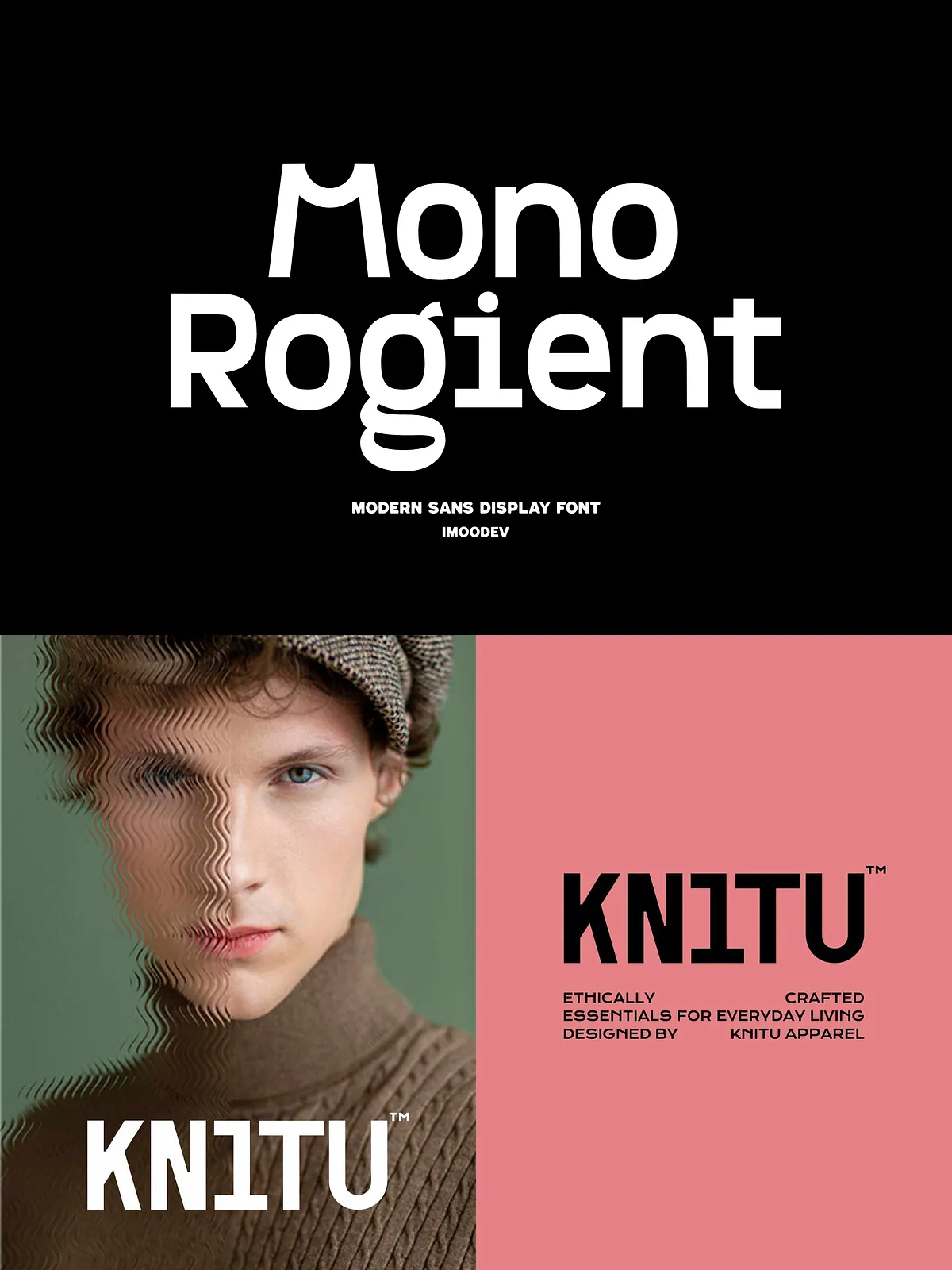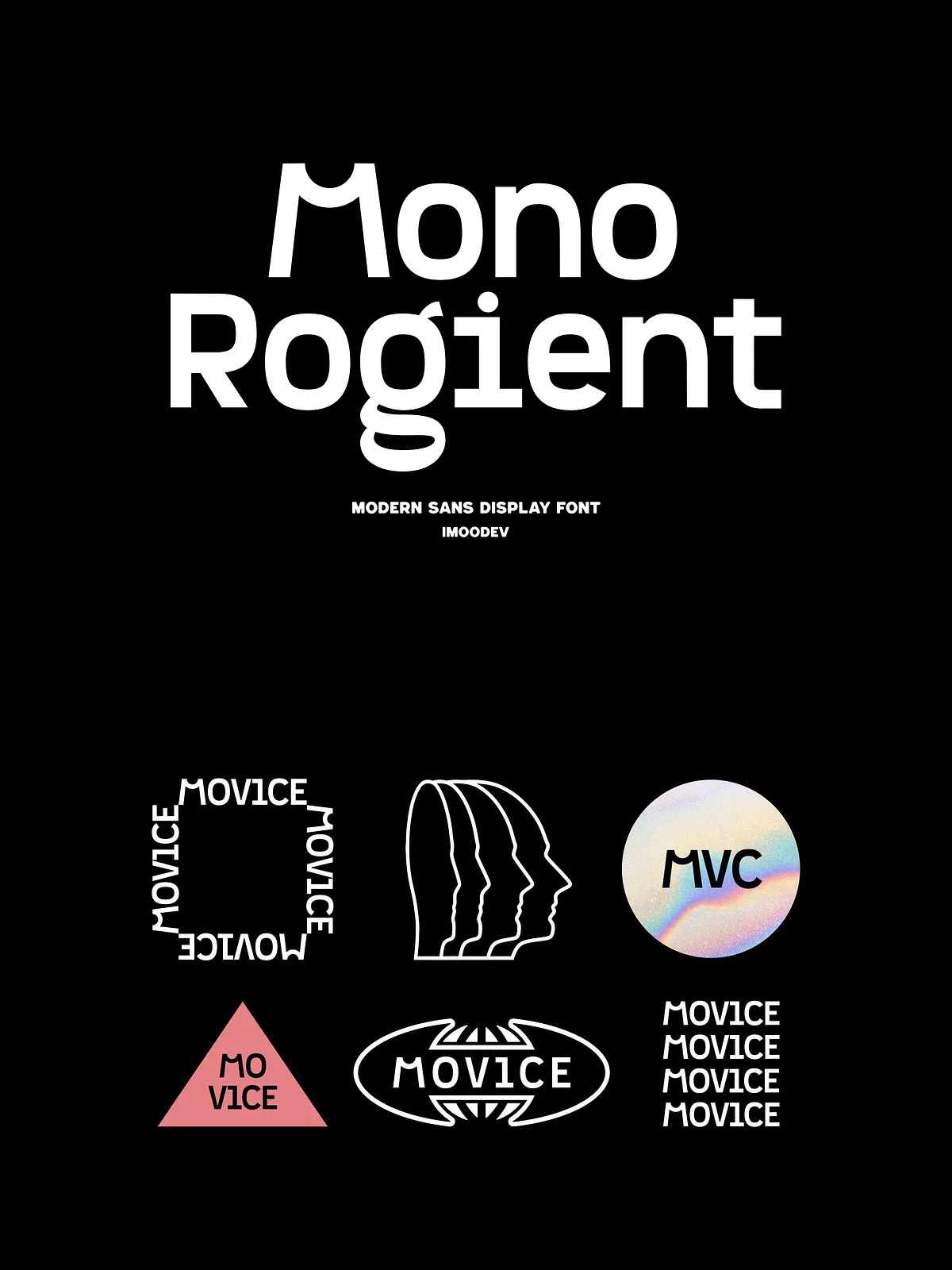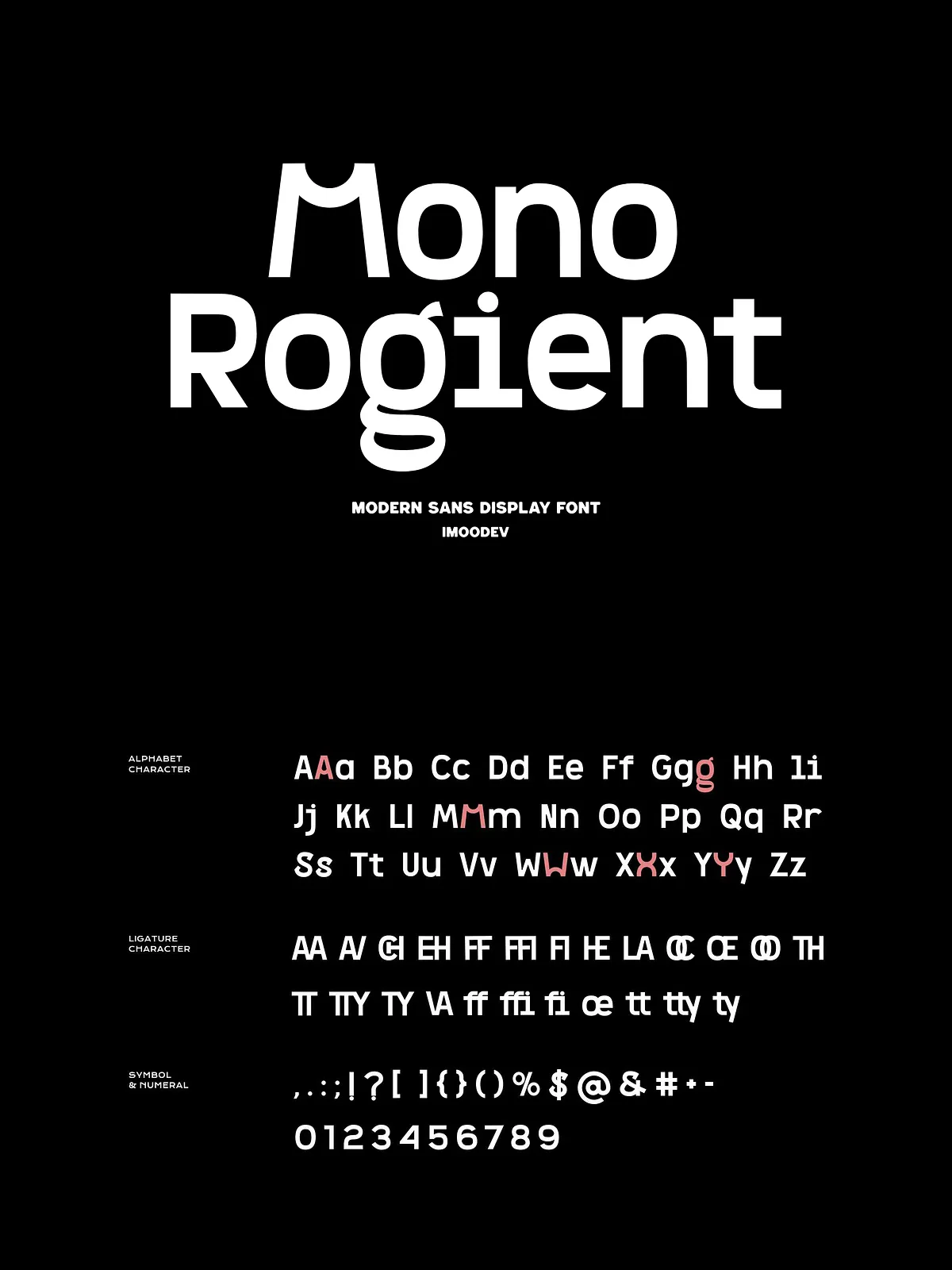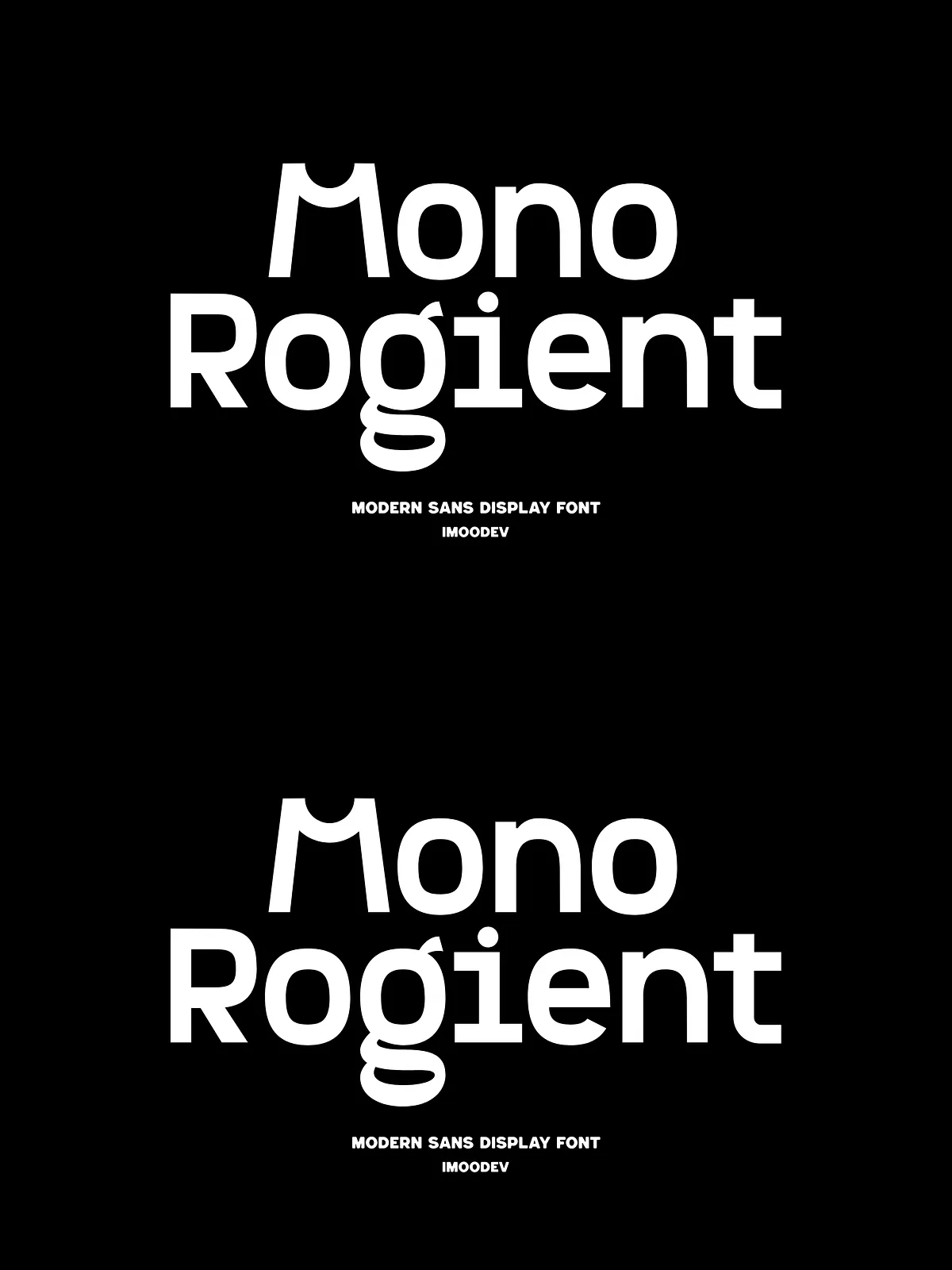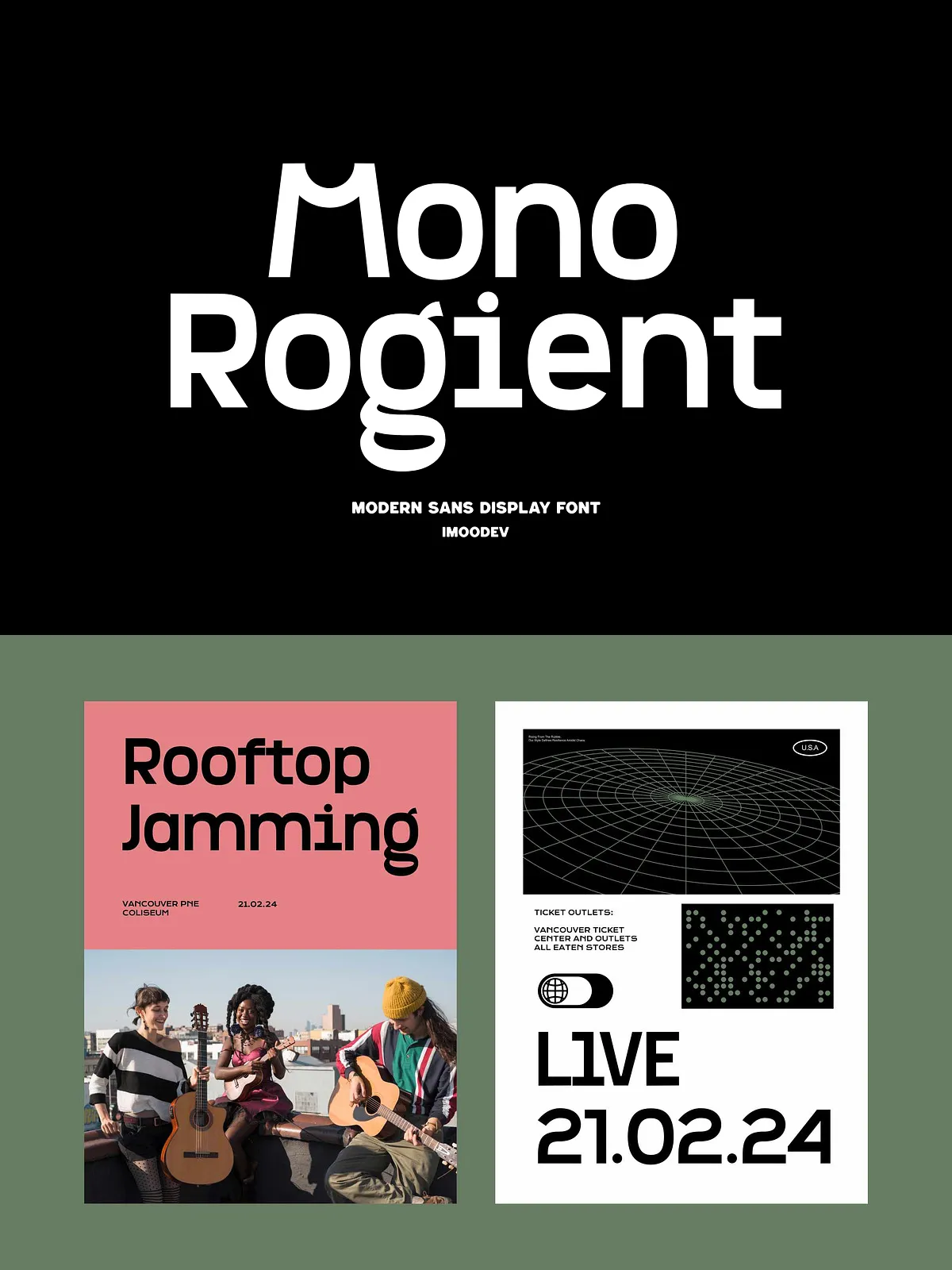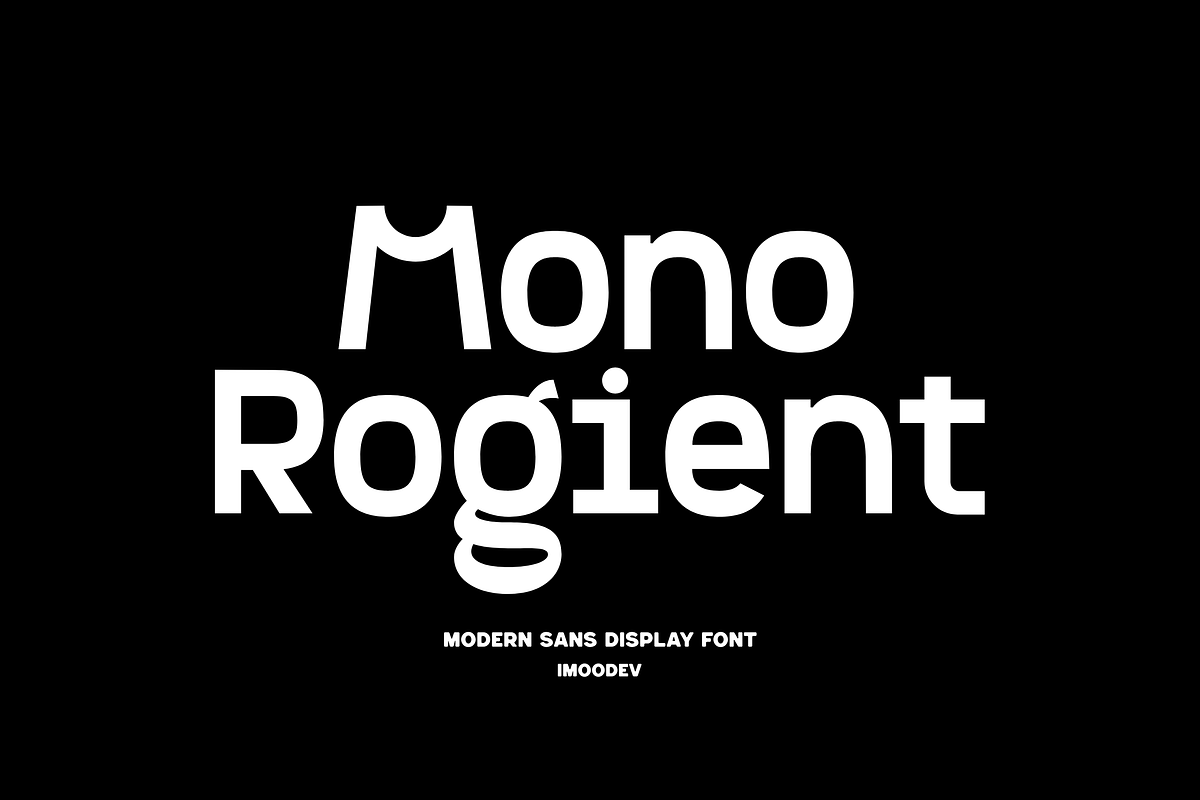
Introducing Mono Rogient — a groundbreaking modern sans display font that redefines what monospaced design can be. Merging the rigid structure of typewriter-style alignment with bold, expressive nuances, Mono Rogient is engineered for designers who demand both clarity and personality in their headlines.
Each glyph is meticulously crafted with a modular architectural foundation, allowing for sharp, consistent spacing across all characters. Yet beneath its geometric precision lies a layer of creative freedom — subtle asymmetries, unique stroke terminations, and intentional irregularities that give the font a lively, human-like presence. This duality makes it stand out in spaces where technical rigor and artistic flair must coexist.
Designed for the Creative Vanguard
Mono Rogient isn’t built for body text. It’s built for impact, identity, and statement-making. Whether you’re defining the visual language of a music label, crafting a fashion campaign, designing a tech product launch, or curating a futuristic editorial layout, this font delivers immediate visual authority.
With its clean, minimal silhouette and dynamic character variation, Mono Rogient thrives in high-contrast environments, large-format prints, and digital motion graphics. It turns every title into a moment — not just text, but expression.
Powerful Feature Set for Professional Designers
- Full Uppercase and Lowercase Support – Designed with both cases in mind for maximum versatility in headlines, subheadings, and branding elements.
- Punctuation, Numbers, and Symbols – Fully functional in all necessary typographic contexts, from pricing tables to technical labels.
- Multilingual Support – Ready for global creative projects with coverage for Latin-based languages and extended character sets.
- Advanced OpenType Features – Access to stylistic sets, contextual alternates, ligatures, and stylistic sets that allow for fine-tuned visual control without changing font files.
Perfect Applications for Mono Rogient
Fashion & Luxury Branding
Use Mono Rogient to create minimalist yet bold logos, campaign slogans, and runway visuals that speak of modern elegance and digital sophistication. Its structured geometry reflects luxury precision, while its expressive quirks add an unexpected edge.
Music & Entertainment Identity
For album art, concert posters, and music video titles, Mono Rogient brings a futuristic edge to genres like electronic, synthwave, and avant-garde pop. The modular design echoes digital soundwave patterns and circuit-like aesthetics.
Tech & Web3 Branding
Perfect for startups, blockchain platforms, and AI-driven services that want to convey innovation without sacrificing readability. Its monospaced layout integrates seamlessly into UI design, terminal-style interfaces, and digital dashboards.
Editorial Design & Magazine Layouts
Use Mono Rogient as an attention-grabbing headline font for feature articles, cover stories, or fashion editorials. Its unique character variation prevents visual fatigue, keeping readers engaged from first glance to last line.
Futuristic Themes, Posters & Motion Graphics
Whether in a poster for a sci-fi film, a concept art title, or an animated intro sequence, Mono Rogient delivers a cinematic presence. The font’s modular design aligns perfectly with futuristic visual motifs — think cyberpunk cityscapes, neural networks, or digital landscapes.
Why Mono Rogient Stands Out
In a market flooded with generic monospaced fonts, Mono Rogient breaks the mold. It doesn’t just follow patterns — it redefines them. While most monospaced fonts emphasize uniformity, Mono Rogient adds character through calculated variation, offering a fresh alternative that feels both modern and handcrafted.
It’s not for everyone. It’s for the bold, the experimental, and the purpose-driven.